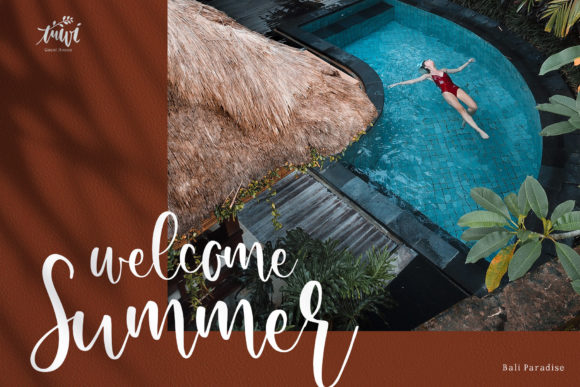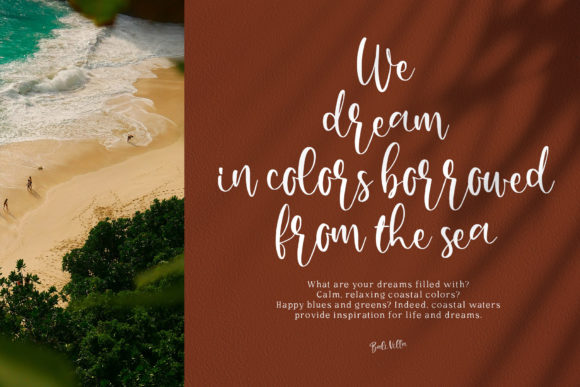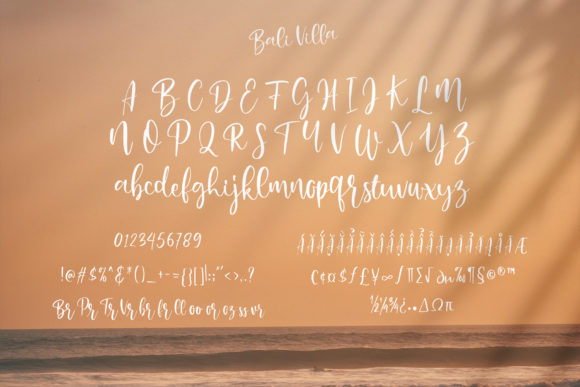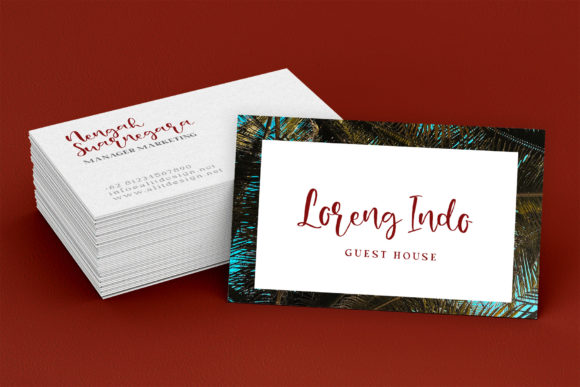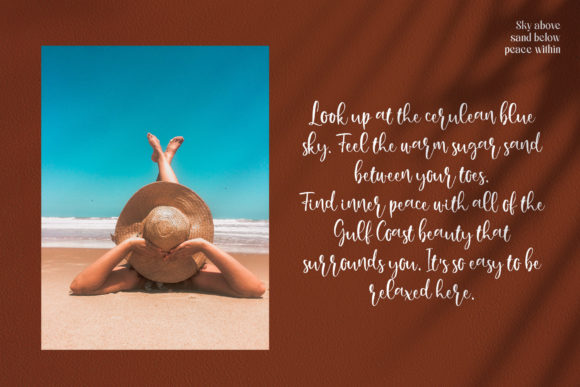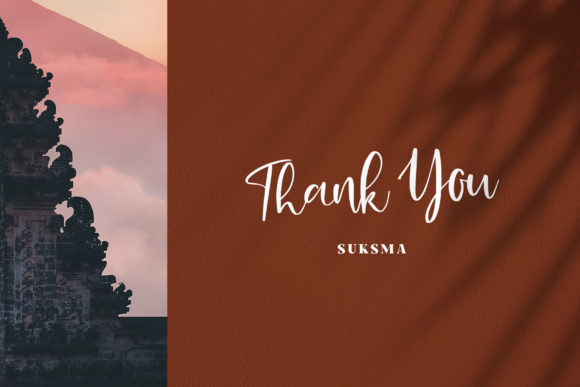
Discover the Timeless Elegance of Bali Villa Font
Have you ever stared at a blank page, waiting for inspiration to strike? The cursor blinks, taunting you to create something extraordinary. In moments like these, the right font can be the spark that sets your imagination ablaze. For designers, the quest for the perfect font is a constant one, and it’s here that Bali Villa Font shines.
This beautiful, flowing handwritten font is designed to evoke an elegant touch, perfect for making your projects stand out. With its distinct and timeless style, Bali Villa Font is a valuable asset for any designer looking to add a touch of sophistication to their work. Whether you’re working on a branding project, a wedding invitation, or a social media campaign, this font is sure to leave a lasting impression.
Bali Villa Font Key Features
- Font Family: Bali Villa Font is a unique, elegant, and sophisticated font family that includes multiple weights and styles.
- Unique Characteristics: Bali Villa Font features intricate details, ornate flourishes, and a touch of exotic charm, making it perfect for luxury branding, high-end designs, and unique typography projects.
- Weight and Style Options: Includes a range of weights, from Light to Bold, as well as styles like Regular, Italic, and Script, offering flexibility and versatility for various design applications.
Bali Villa Font Review
As a designer, I’ve had the chance to work with Bali Villa Font, and I have mixed feelings about it. Here are my thoughts:
- ✨ Elegant and sophisticated design: Bali Villa Font has a beautiful, refined aesthetic that’s perfect for high-end branding, luxury travel, or upscale hospitality projects.
- ✨ Versatile: The font comes in a range of weights and styles, making it suitable for various applications, from body text to headings.
- ✨ Well-behaved: The font behaves well in digital formats, with clear and consistent rendering across different devices and resolutions.
- ⚠️ Limited language support: Bali Villa Font seems to be primarily designed for Latin-based languages, with limited support for other languages.
- ⚠️ No bold or italic versions: While the font offers various weights, it lacks bold or italic versions, which might limit its usability in certain contexts.
Bali Villa Font is a beautiful and elegant font that excels in certain areas. However, its limitations, such as limited language support and the lack of bold or italic versions, might make it less versatile than other fonts. If you’re working on a project that requires a high-end, sophisticated look, Bali Villa Font might be a good choice. But for more complex or multilingual projects, you might want to consider other options.
Bali Villa Font Practical Application Guide
The Bali Villa font is ideal for designing:
- Travel and hospitality materials (e.g., brochures, flyers, and menus).
- Wedding and event invitations.
- Restaurant and cafe menus.
For optimal results, use the Bali Villa font in conjunction with a clean and minimal design aesthetic.
Alternatives to Bali Villa Font
Lato is a sans-serif font that is highly legible and versatile. It is suitable for use in body text, headings, and titles. Lato is a modern font that is clean and elegant, making it a great alternative to Bali Villa Font for designers who want a more contemporary look. Compared to Bali Villa Font, Lato is more modern and has a more open feel.
2. Merriweather Font
Merrweather is a classic serif font that is highly legible and elegant. It is suitable for use in body text, headings, and titles, and is particularly well-suited for use in books, magazines, and other print materials. Merrweather is a more traditional font compared to Bali Villa Font, which is more modern and eclectic.
Montserrat is a sans-serif font that is highly legible and versatile. It is suitable for use in body text, headings, and titles, and is particularly well-suited for use in urban and modern designs. Montserrat is a more urban and edgy font compared to Bali Villa Font, which is more tropical and laid-back.
What is the recommended font size and line height for Bali Villa Font?
For optimal readability, we recommend using a font size between 12pt and 24pt, with a line height of 1.2 to 1.5 times the font size. This will provide a clear and comfortable reading experience for your audience.